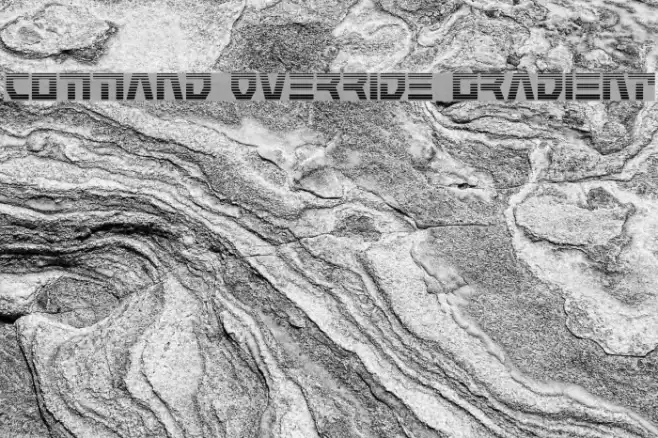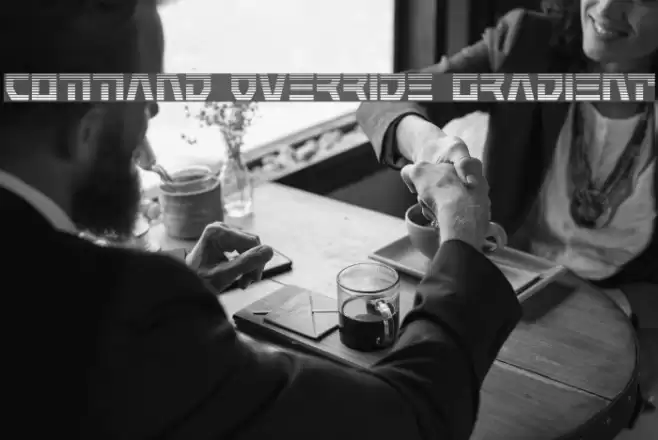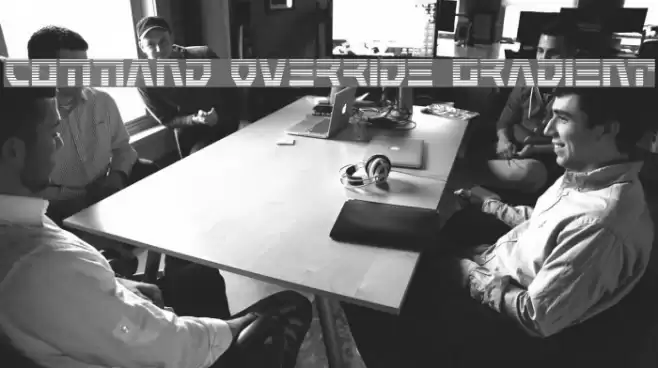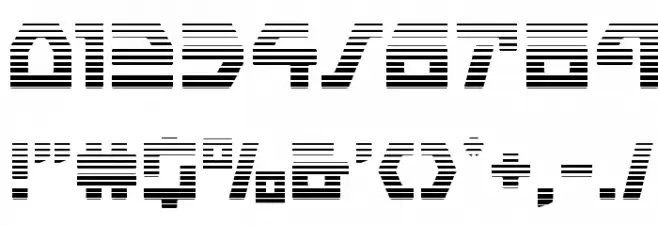
Command Override Gradient Font
Command Override Gradient Description
This font features a futuristic and digital aesthetic, characterized by its horizontal line patterns that create a sense of movement and depth. The characters are constructed with a series of parallel lines, giving them a unique, layered appearance. This design choice results in a high-tech, mechanical feel, reminiscent of digital displays or electronic interfaces. The uppercase and lowercase letters maintain a consistent style, ensuring readability while still offering a distinct visual impact. The numbers and special characters follow the same design principles, making the font versatile for various applications.
A futuristic font with horizontal line patterns creating a digital, high-tech look from Uncategorized fonts.
- Proposed Projects: Ideal for technology-themed projects, video game interfaces, sci-fi movie titles, or digital art designs.